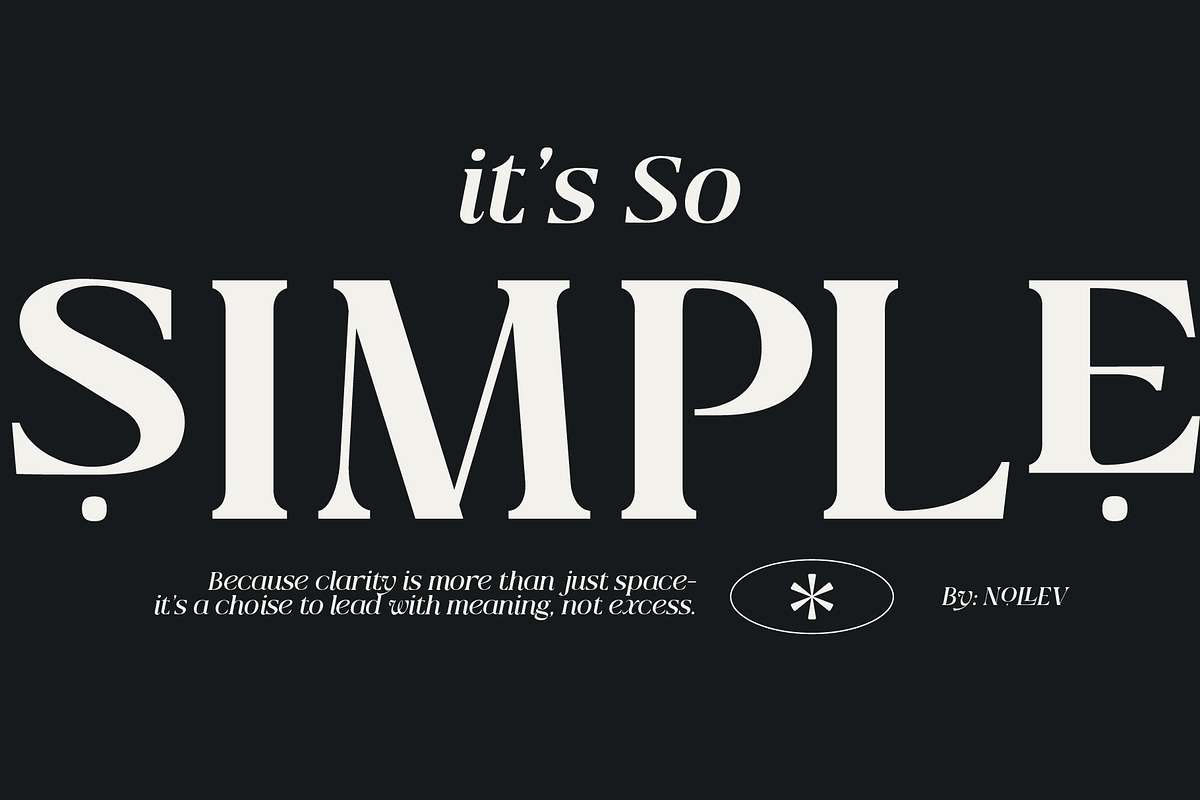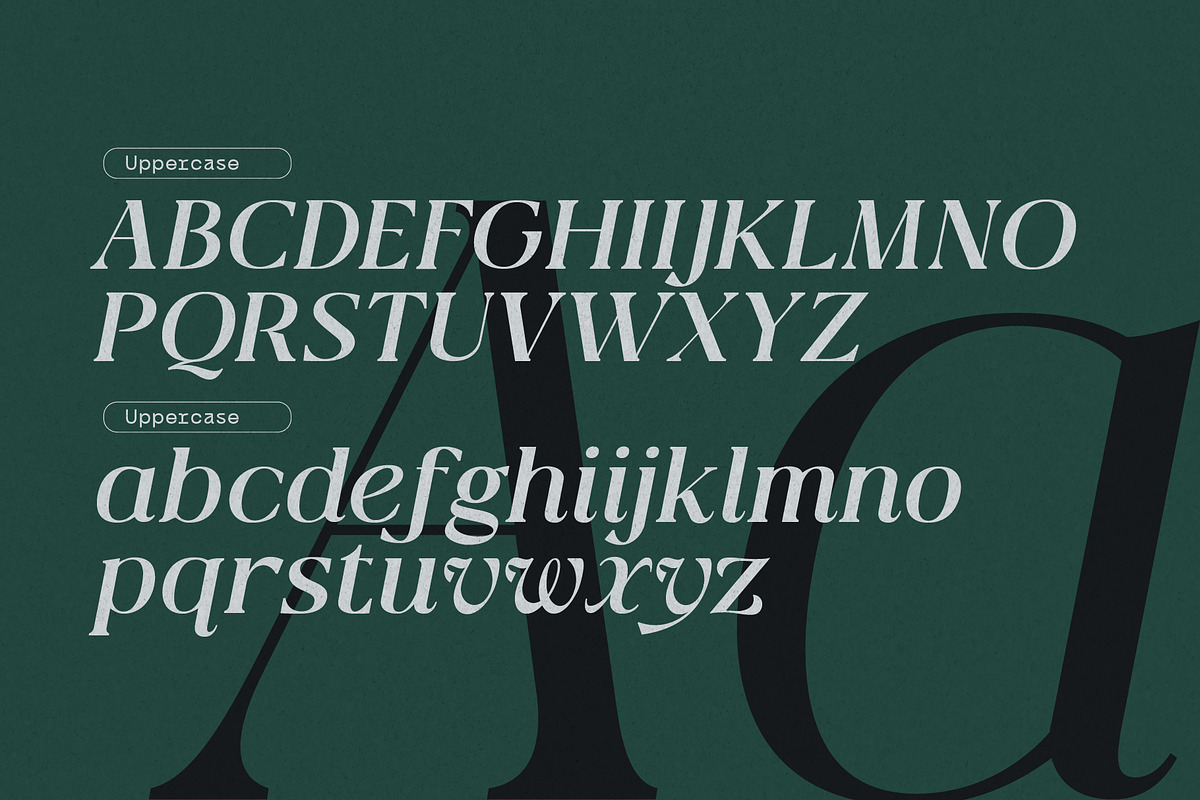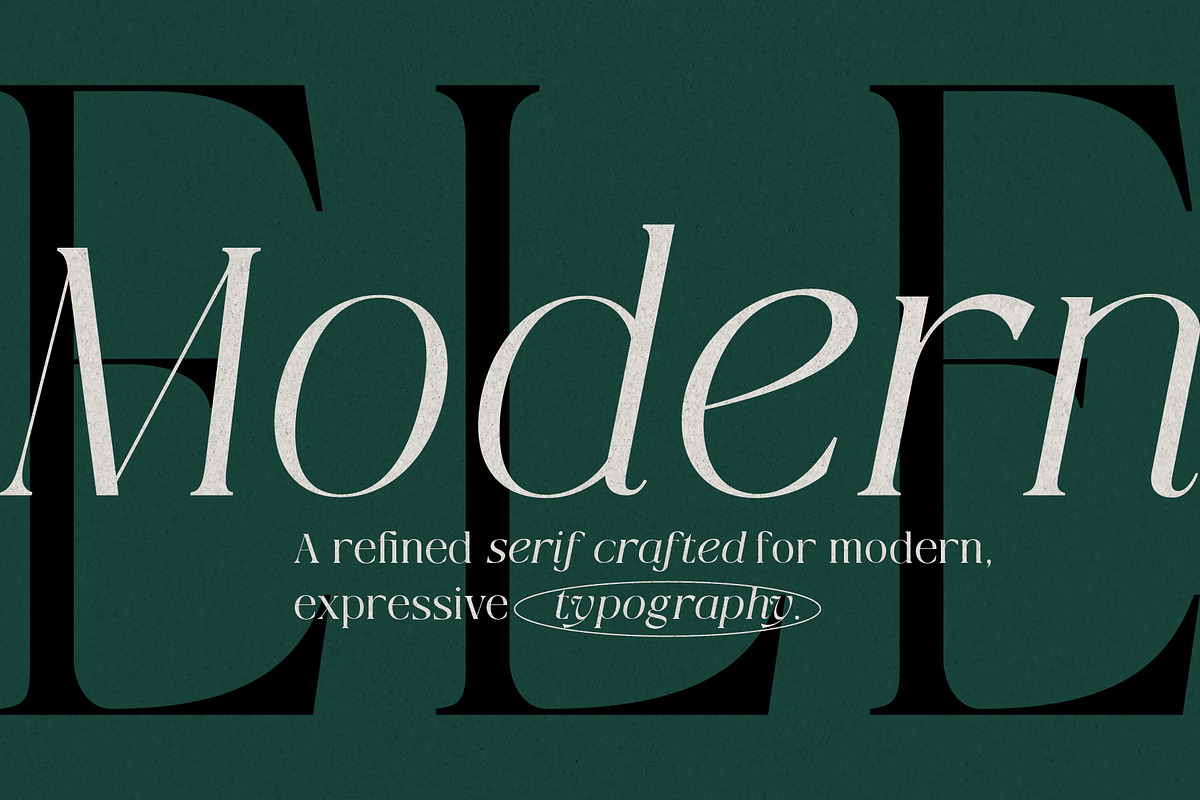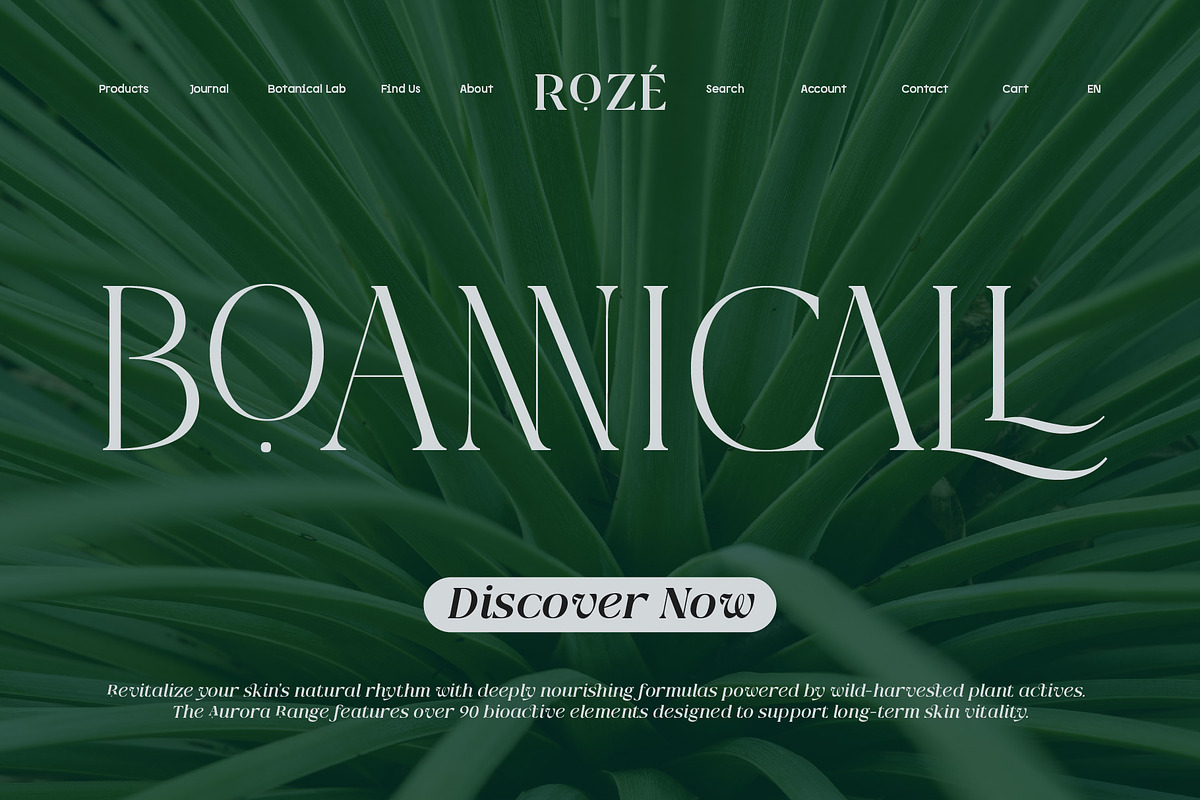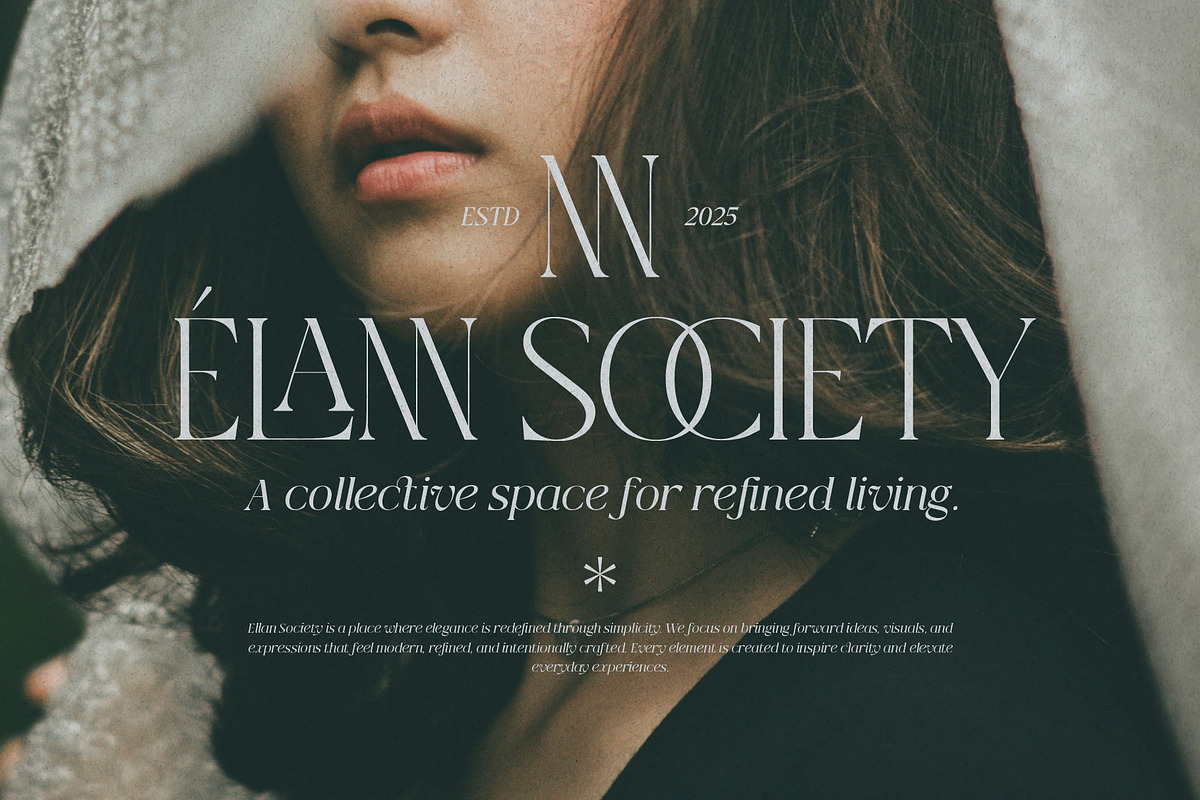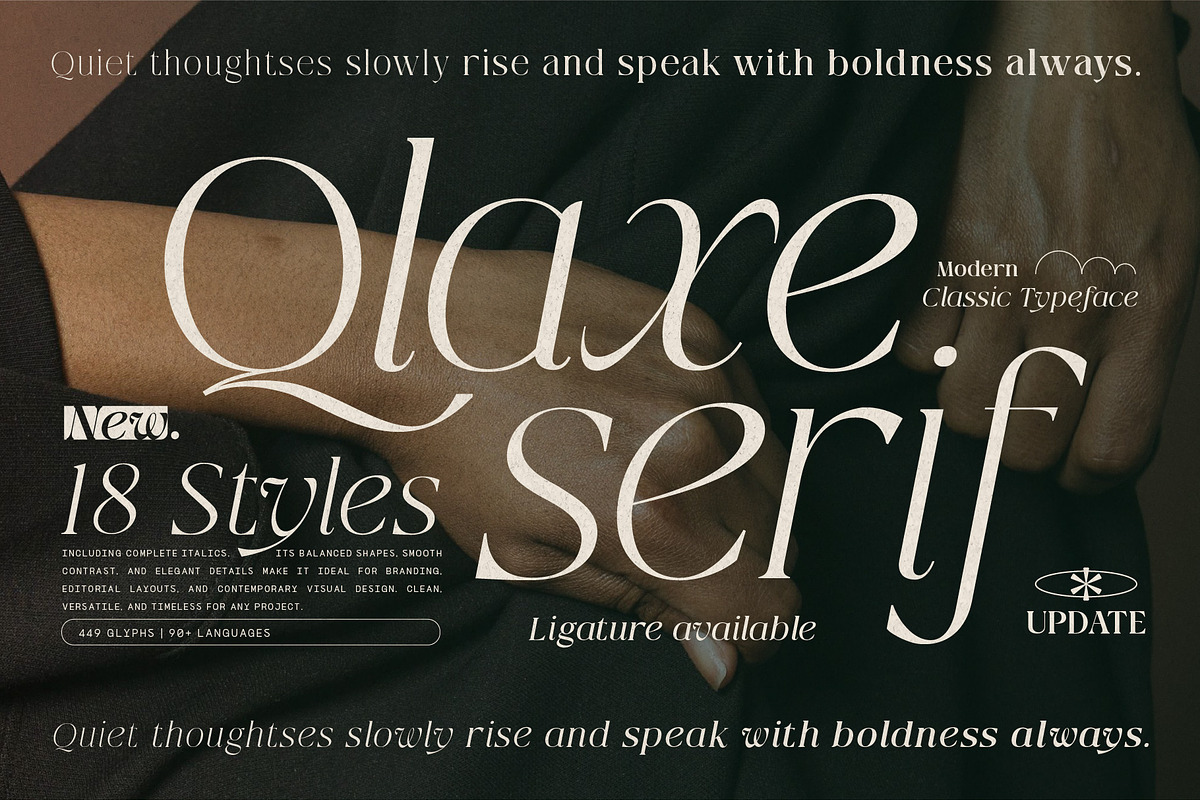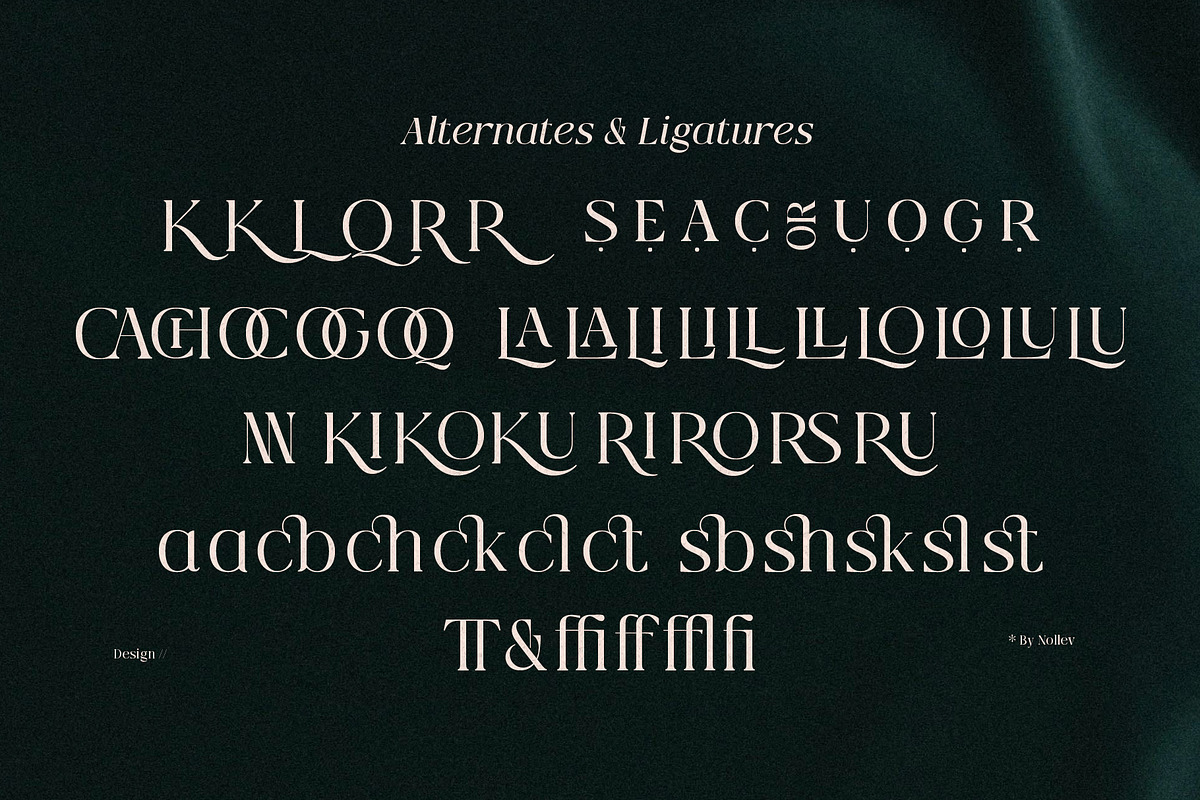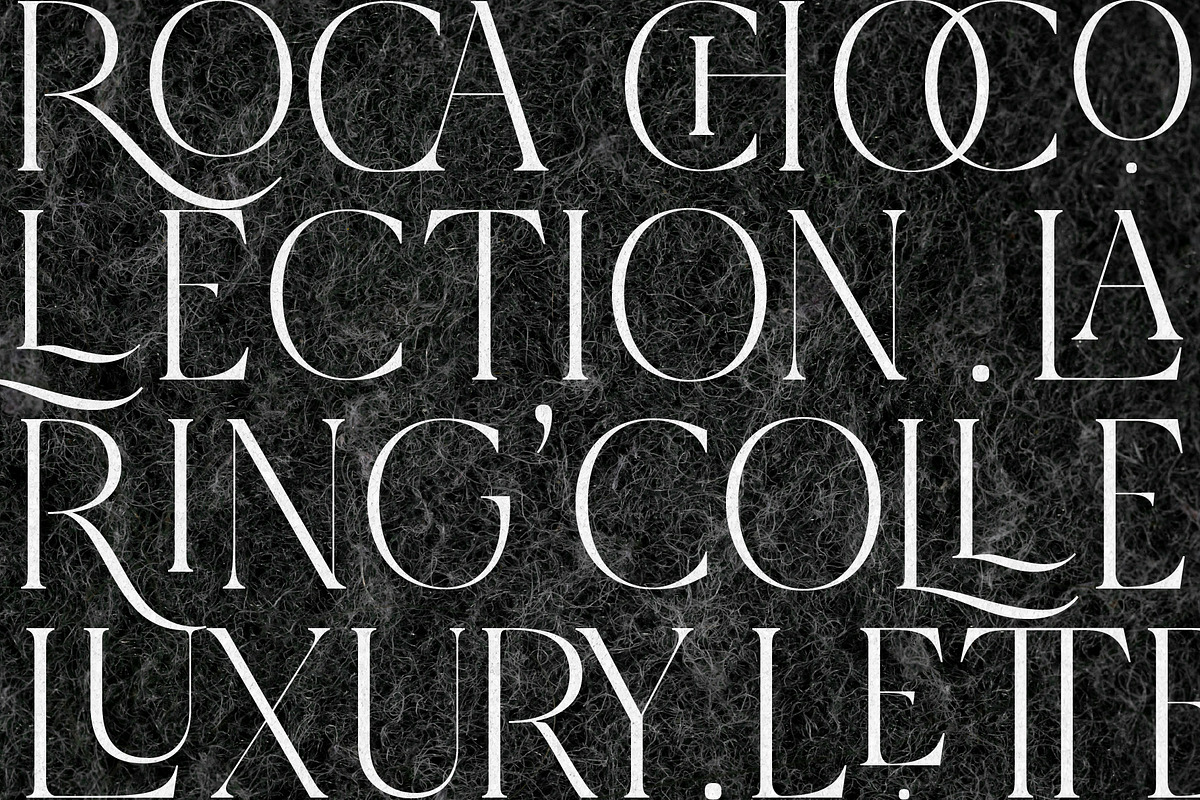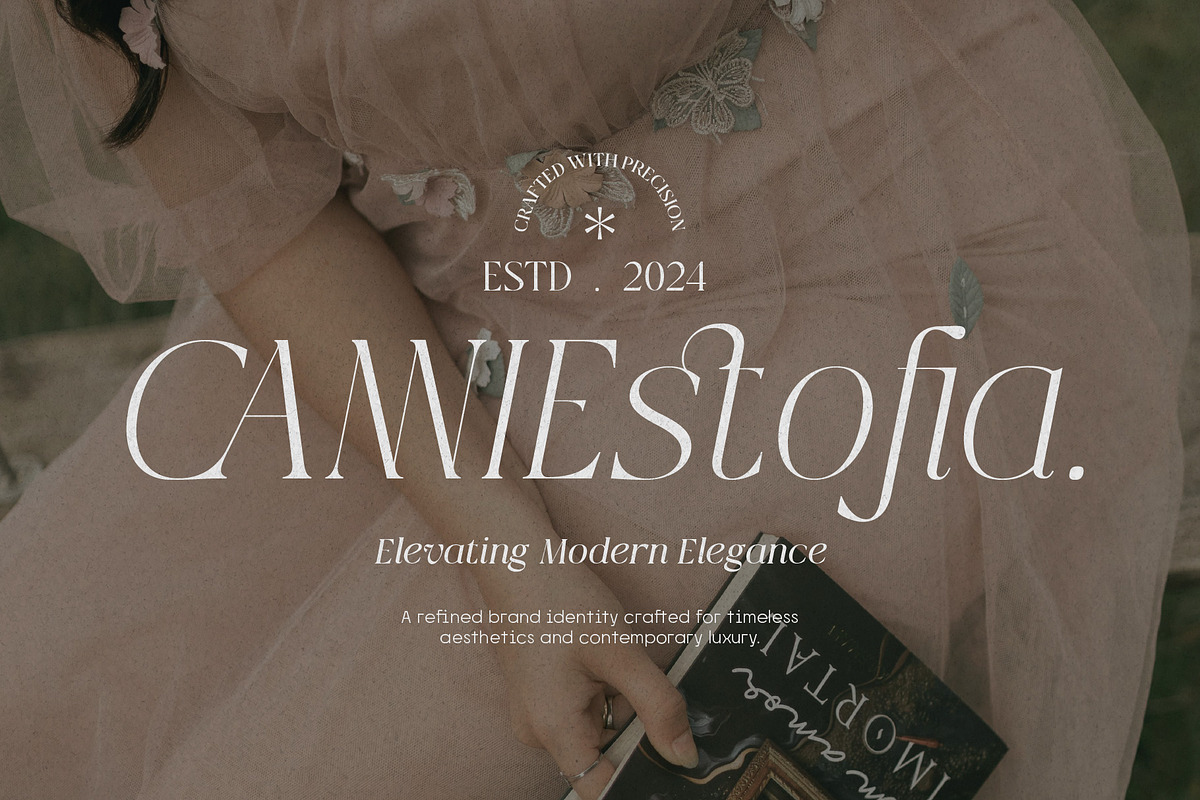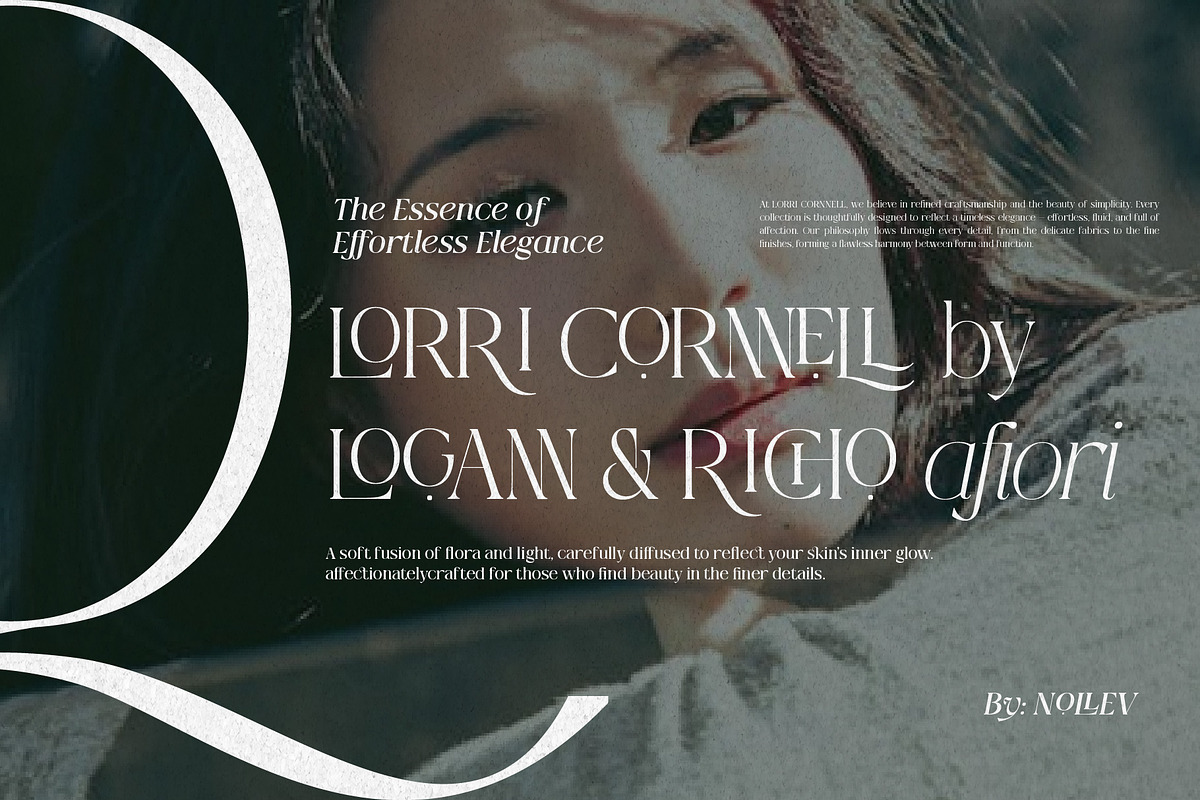
Qlaxe Serif – Update Italics
Qlaxe Serif is a classic–modern serif typeface that blends timeless elegance with a refined contemporary touch. Designed with expressive letterforms and custom ligatures, Qlaxe brings sophistication and confidence to any design. With 18 styles — from Thin to Black, including matching Italics — it is a versatile choice for branding, logos, packaging, editorial design, and luxury visual identities.
Clean lines, sharp serifs, and subtle contrast for a polished yet distinctive look
18 styles (9 weights + Italics)
Unique ligatures
Uppercase & lowercase letters
Punctuation & symbols